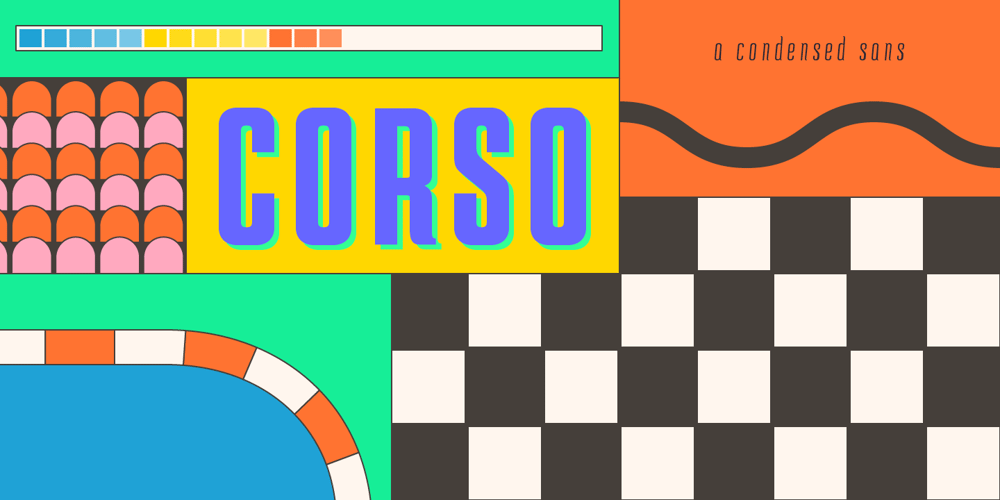
Corso
Corso font
Corso Font Family was designed by Dominik Krotscheck and published by Dominik Krotscheck. Corso contains 18 styles and family package options. Corso is a clean condensed sans serif font family. It comes in upright, slanted and italic, in six weights each.It includes useful typographic features such as fractions, ligatures and case sensitive forms. Also included are double- or single-storey versions of a and g, you can switch via stylistic OpenType sets. Other letters with alternative forms accessible the same way are ß and ampersand.Corso works especially great for larger size uses such as signage, headlines or posters. But that doesn’t mean that it isn’t also useable for short texts.